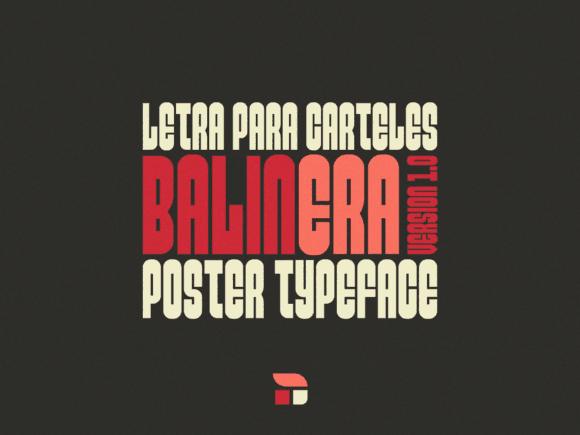
Balinera Font for Cricut, Silhouette and Printable Designs
Balinera Font is a digital font created for smooth performance in cutting machines like Cricut and Silhouette, as well as printable project applications. With its bold and approachable style, it brings charm and clarity to every design—whether printed or cut from vinyl, paper, or HTV. Its versatility makes it an excellent choice for various crafting projects, ensuring that each piece stands out with personality and style. Additionally, the Balinera Font pairs beautifully with elements like illustrations and graphics, enhancing the overall aesthetic of any project. For those seeking something uniquely captivating, Balinera is the ultimate barqish font for crafting projects that leave a lasting impression.
Engineered as a reliable font entity, Balinera blends aesthetic appeal with production efficiency, making it ideal for custom merch, labels, quotes, and home-based business projects. With a range of weights and styles, Balinera can adapt to various design needs, ensuring versatility for any project. Its unique characteristics not only enhance visual storytelling but also foster a connection between the product and the consumer. For those interested in exploring similar styles, a ballon romance font overview showcases complementary options that can elevate any design further.
- Vinyl decals and iron-on transfers
- Printable quotes and digital wall art
- Labels, tags, and planner assets
- Custom mugs, shirts, and tote bags
- Craft signs and event decorations
- Perfectly smooth paths for cutting and printing
- Playful design that works on any surface
Q: What kind of font is Balinera?
A: Balinera is a display font designed for use in cutting machines and printable crafts. It combines clarity with a fun, modern look.
| Feature | Balinera Font | Generic Bold Font | Generic Script Font |
| Creative Role | Crafting and print-ready display | Headlines and bold design | Elegant, flowing visuals |
| Best Use Cases | Cricut, Silhouette, printable goods | Posters, ads, signs | Invitations, quotes, decor |
| Design Style | Fun, clean, easy to cut | Bold, impactful | Handwritten, ornamental |